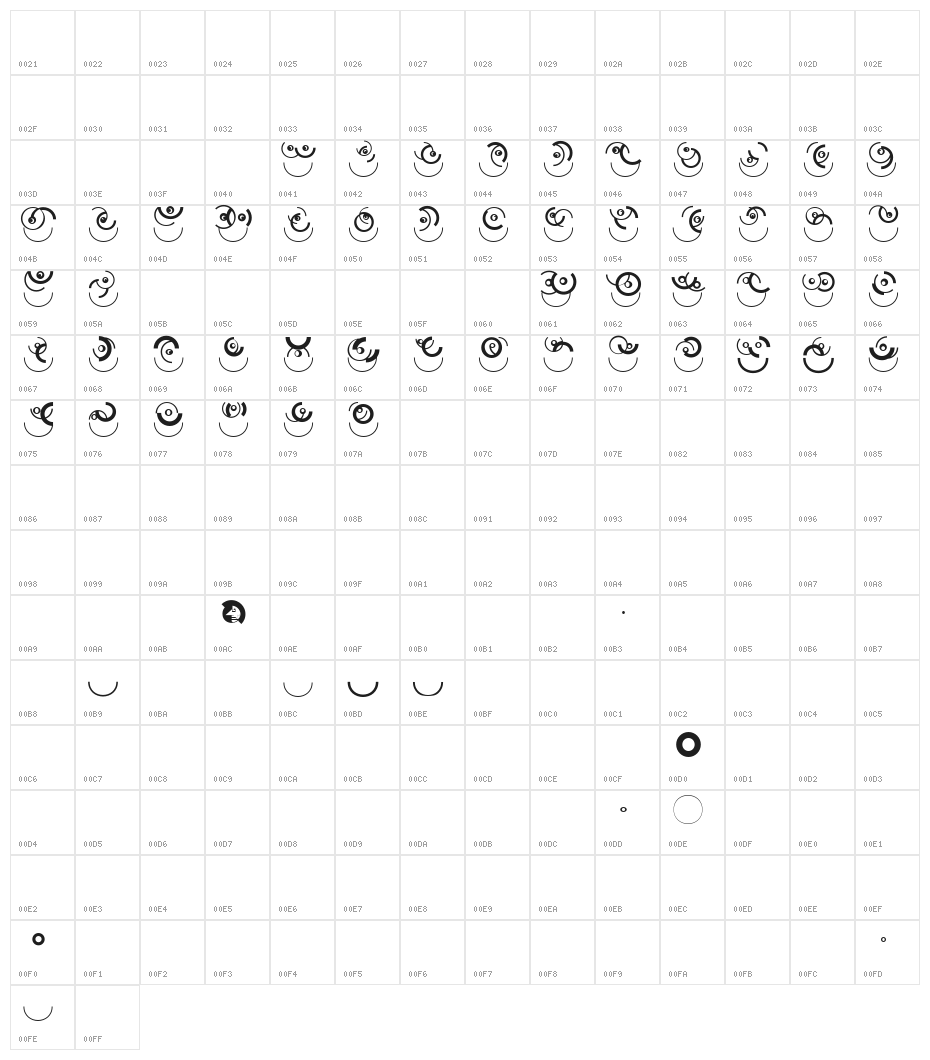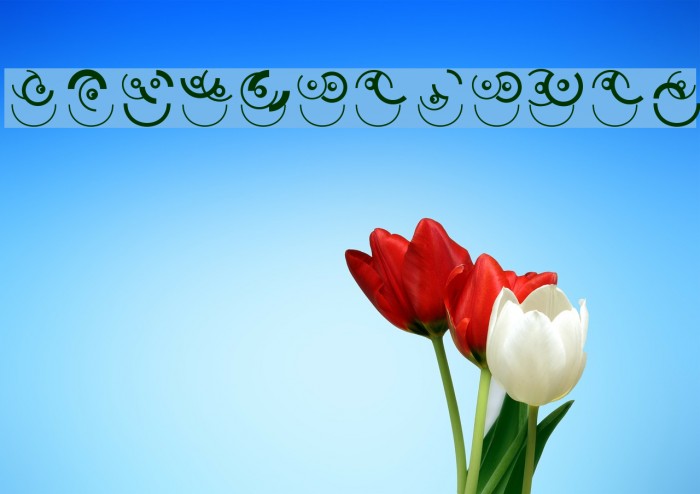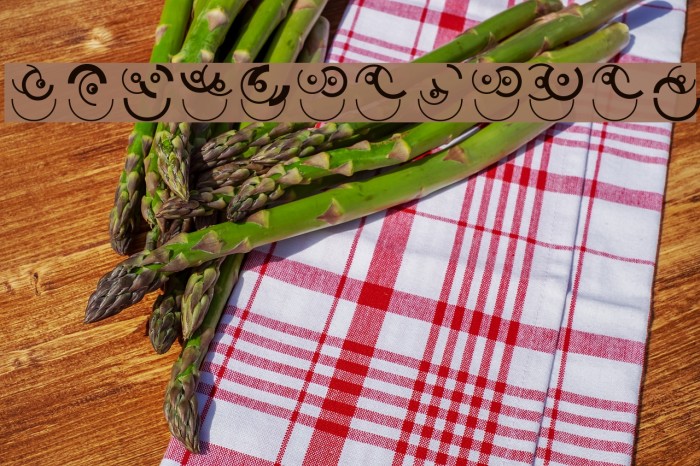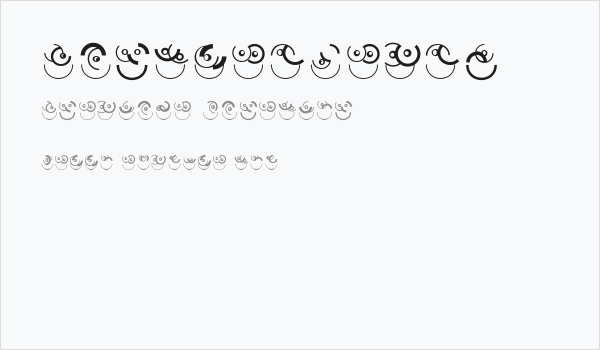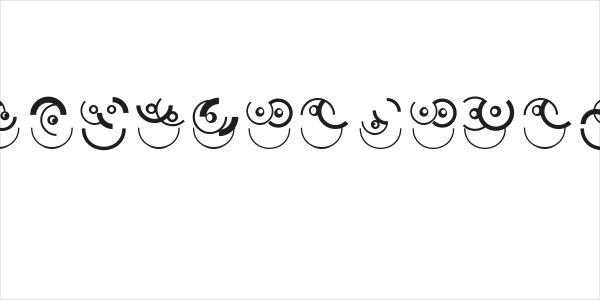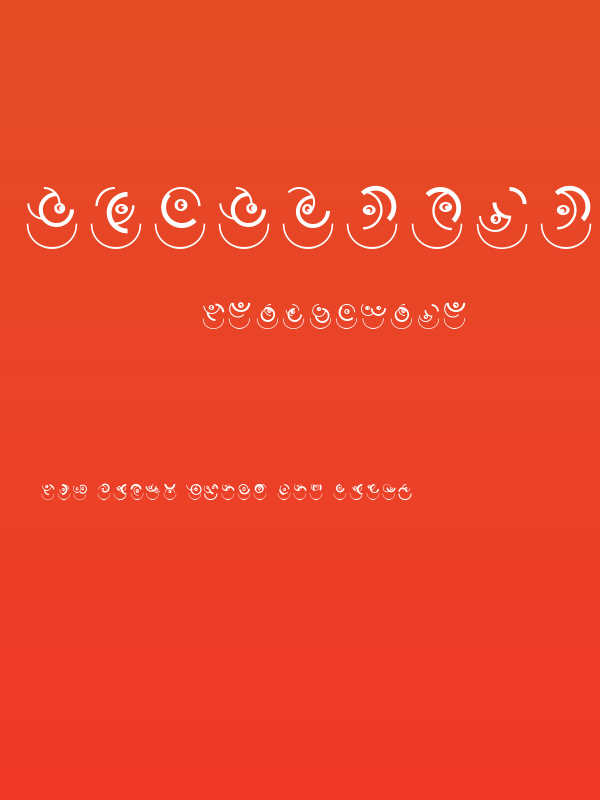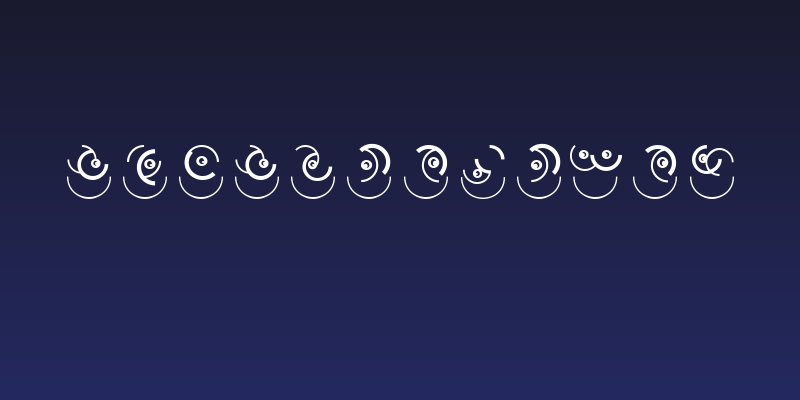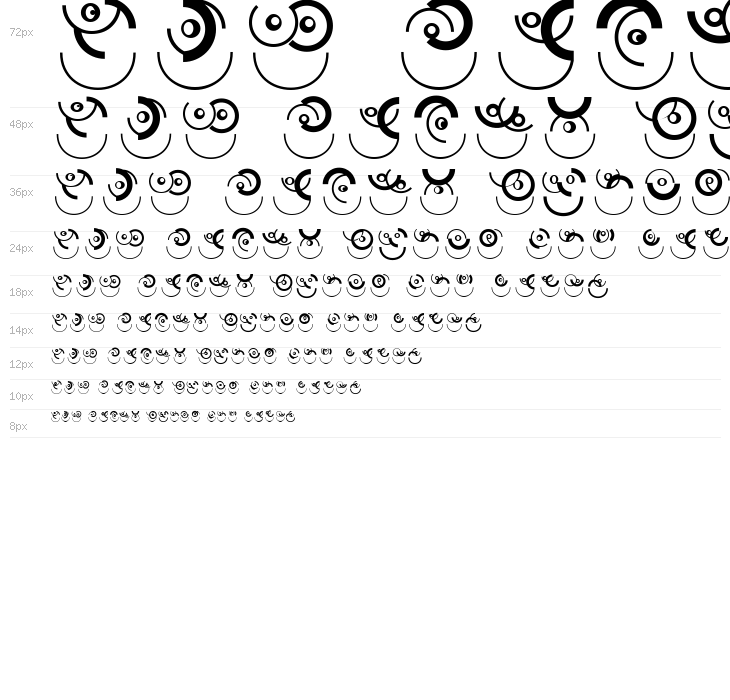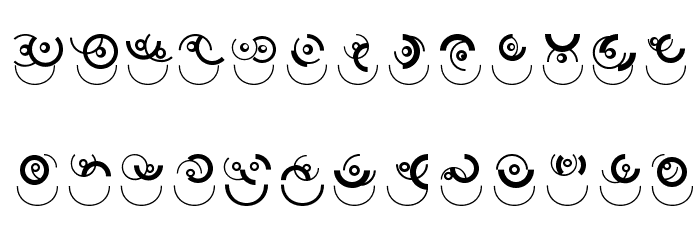
CircledHeads Font
CircledHeads Description
This font features a highly decorative and abstract design, where each character is represented by a unique combination of circular and curved elements. The characters resemble stylized faces or masks, giving the font a playful and artistic appearance. The strokes are bold and consistent in thickness, creating a strong visual impact. The overall design is intricate, with each letter having a distinct personality, making it suitable for creative and unconventional projects.